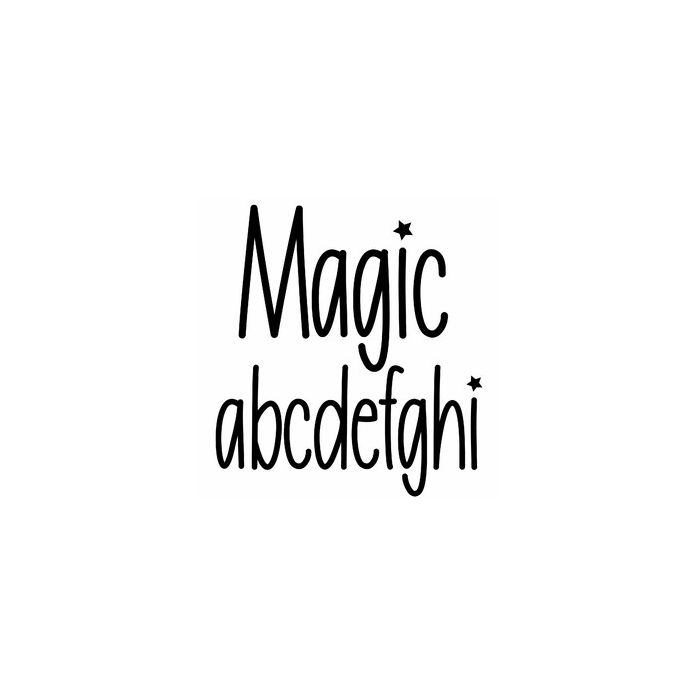
Cute and versatile handwriting font for Halloween and Holiday crafts, cards, signs, decorations, coffee mugs, personalization projects, notes, calendars, stickers, etc. Includes alphabet, numbers, and punctuation.